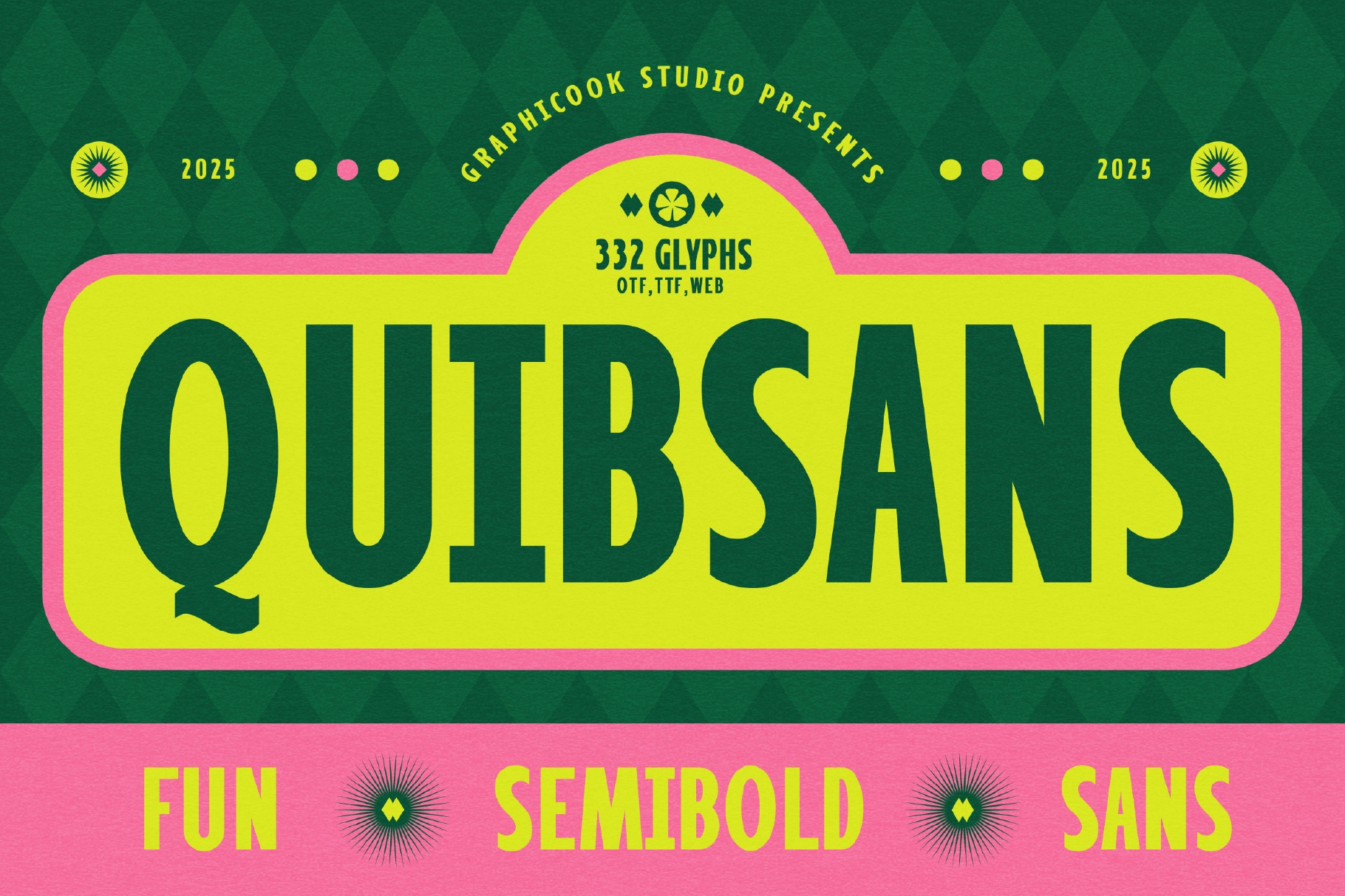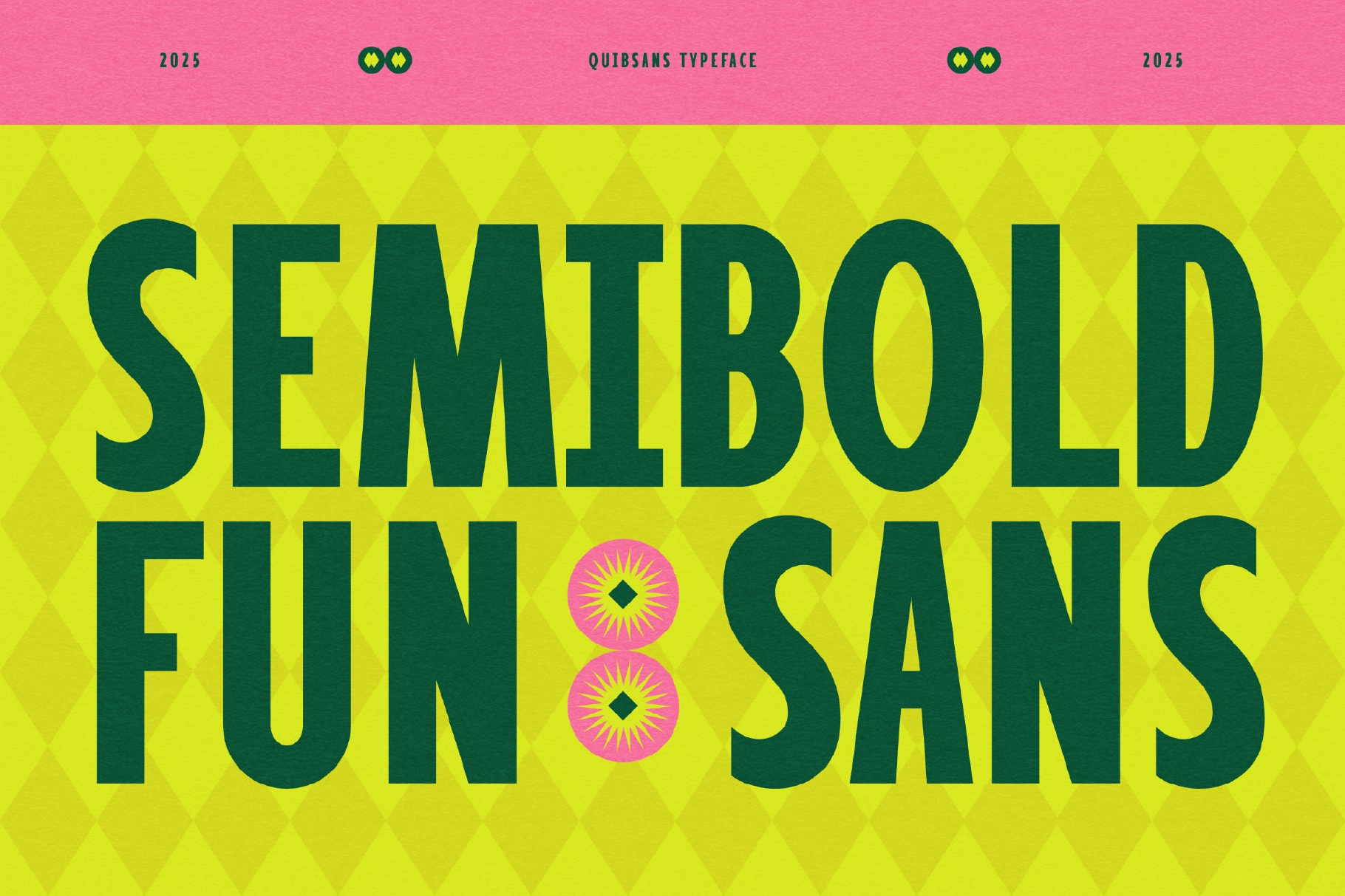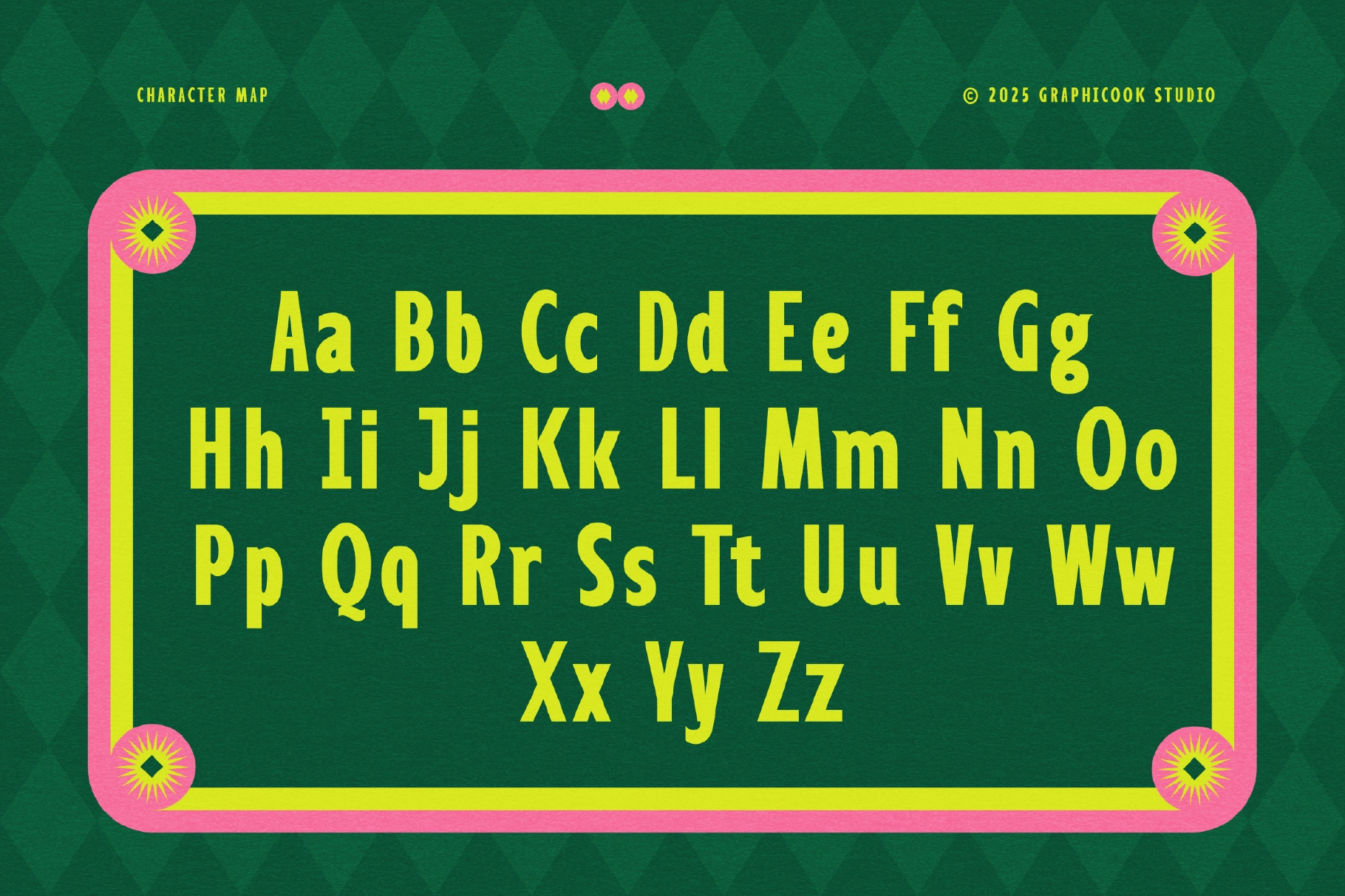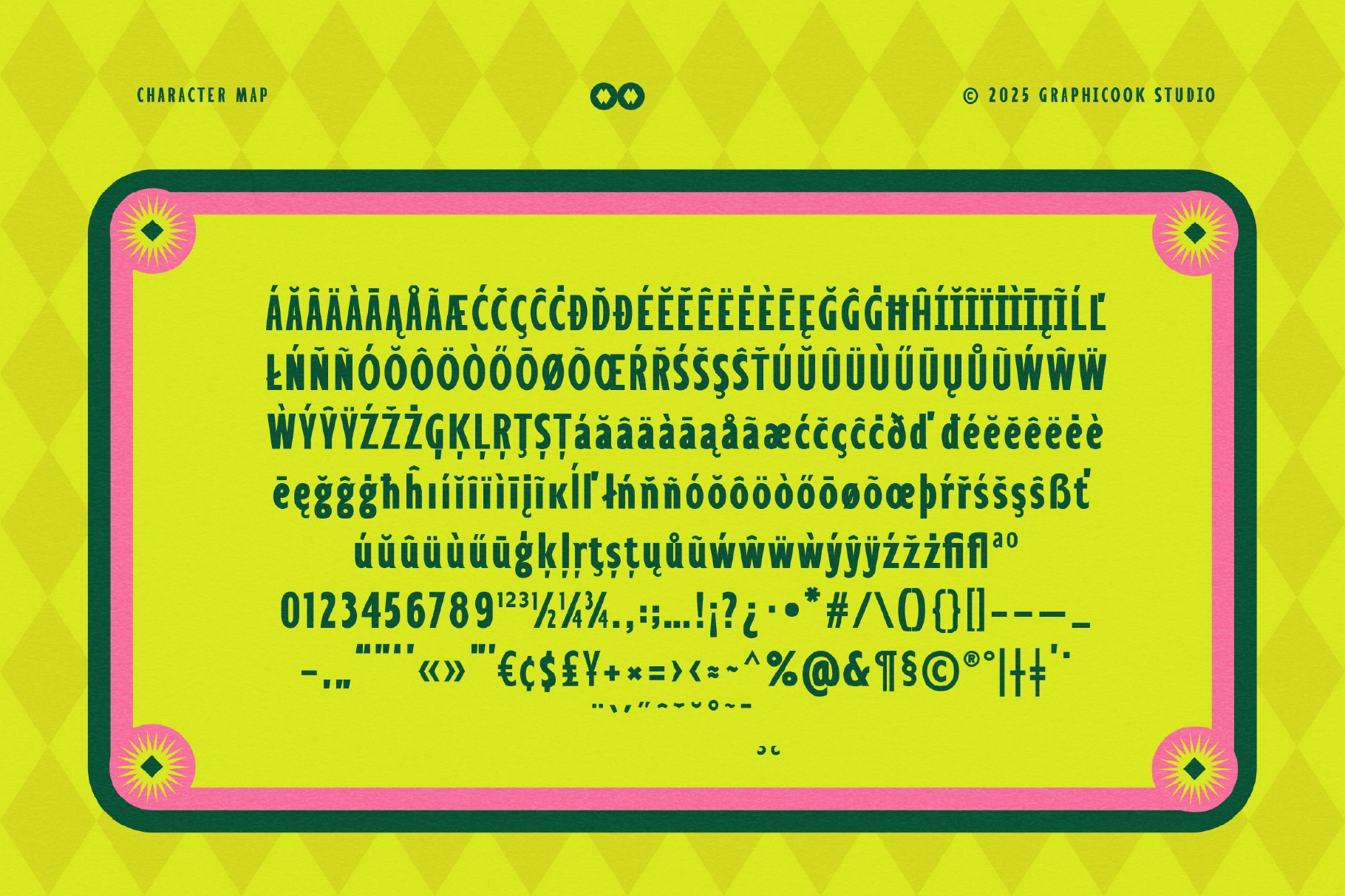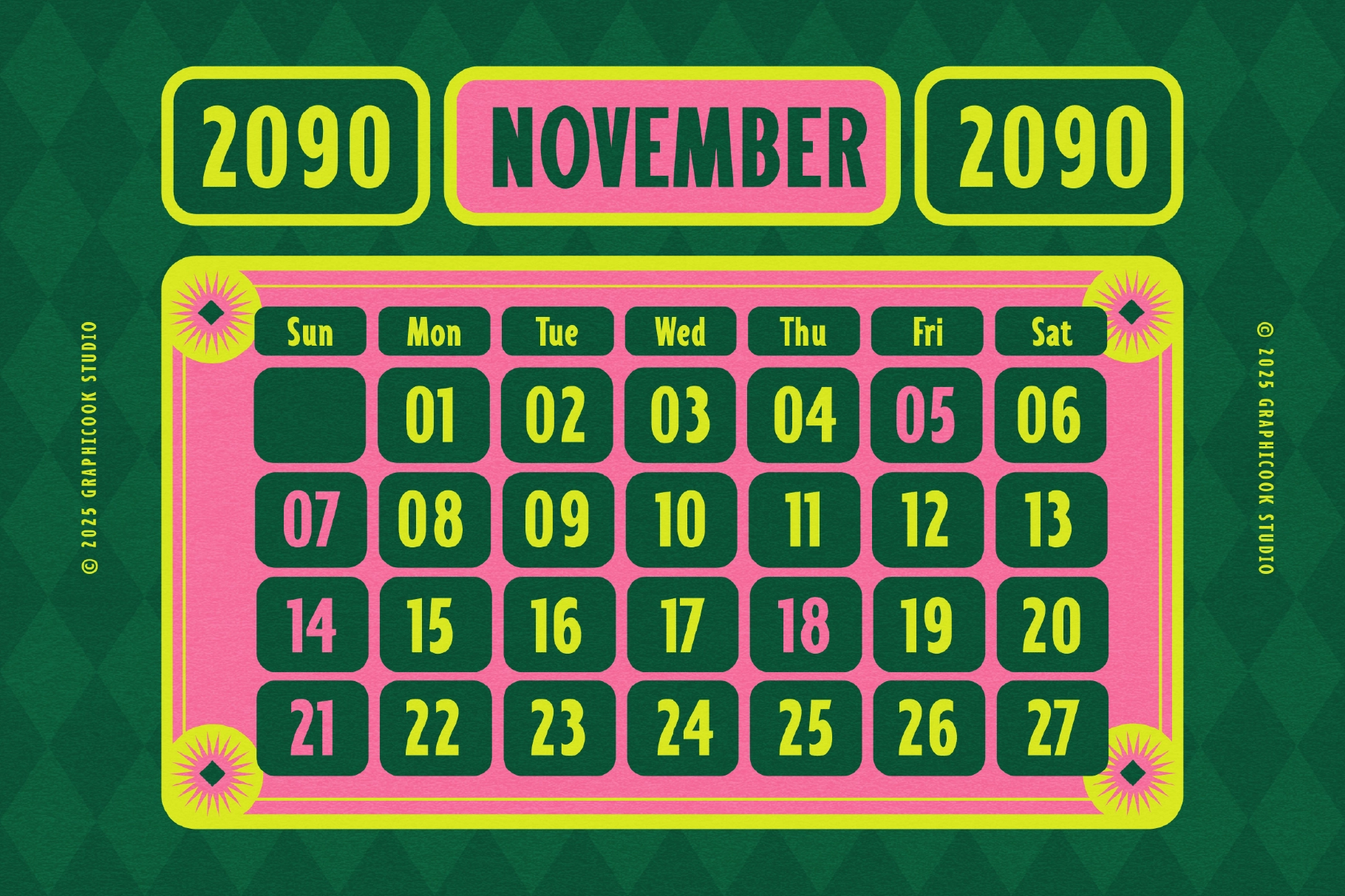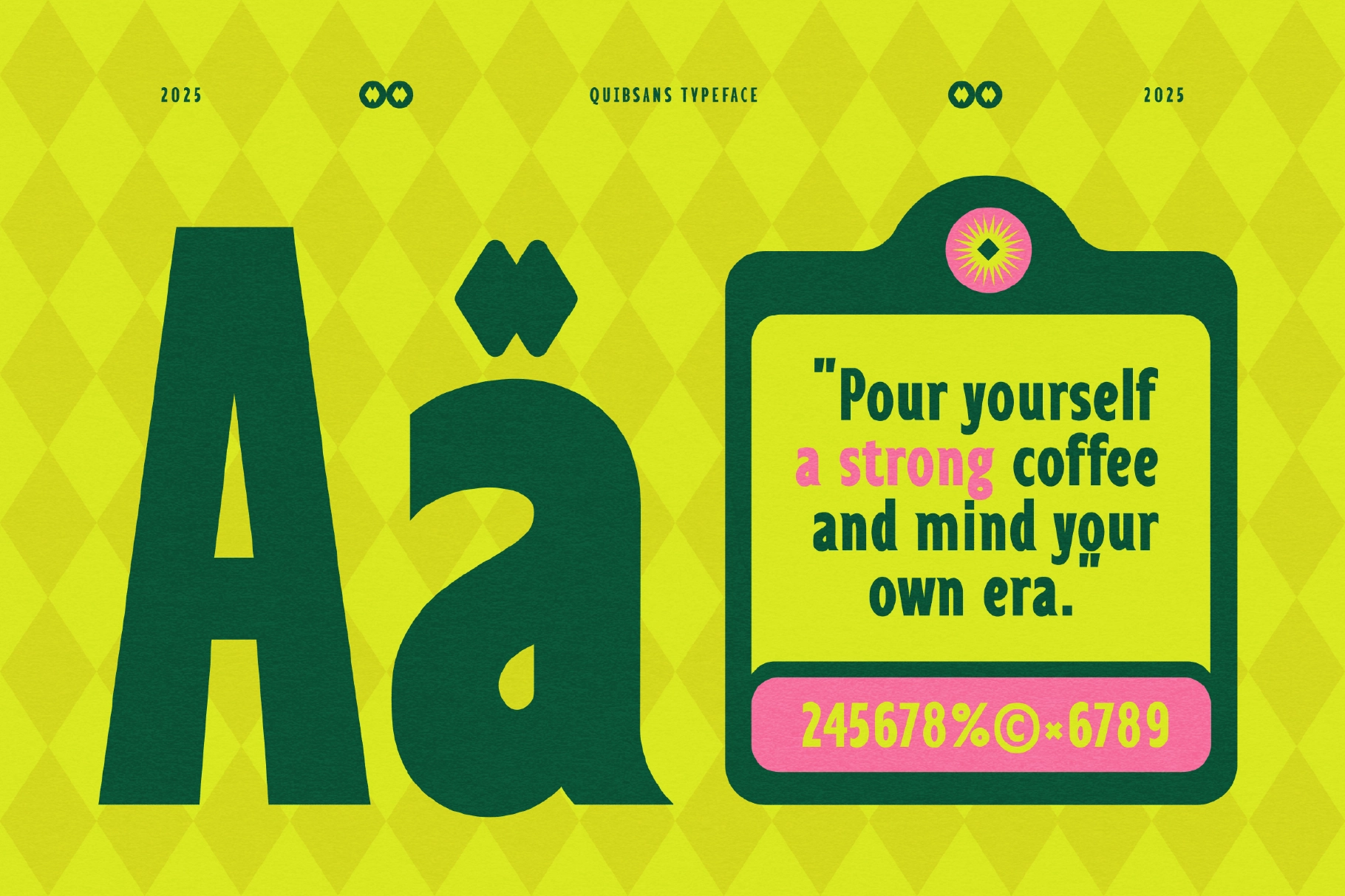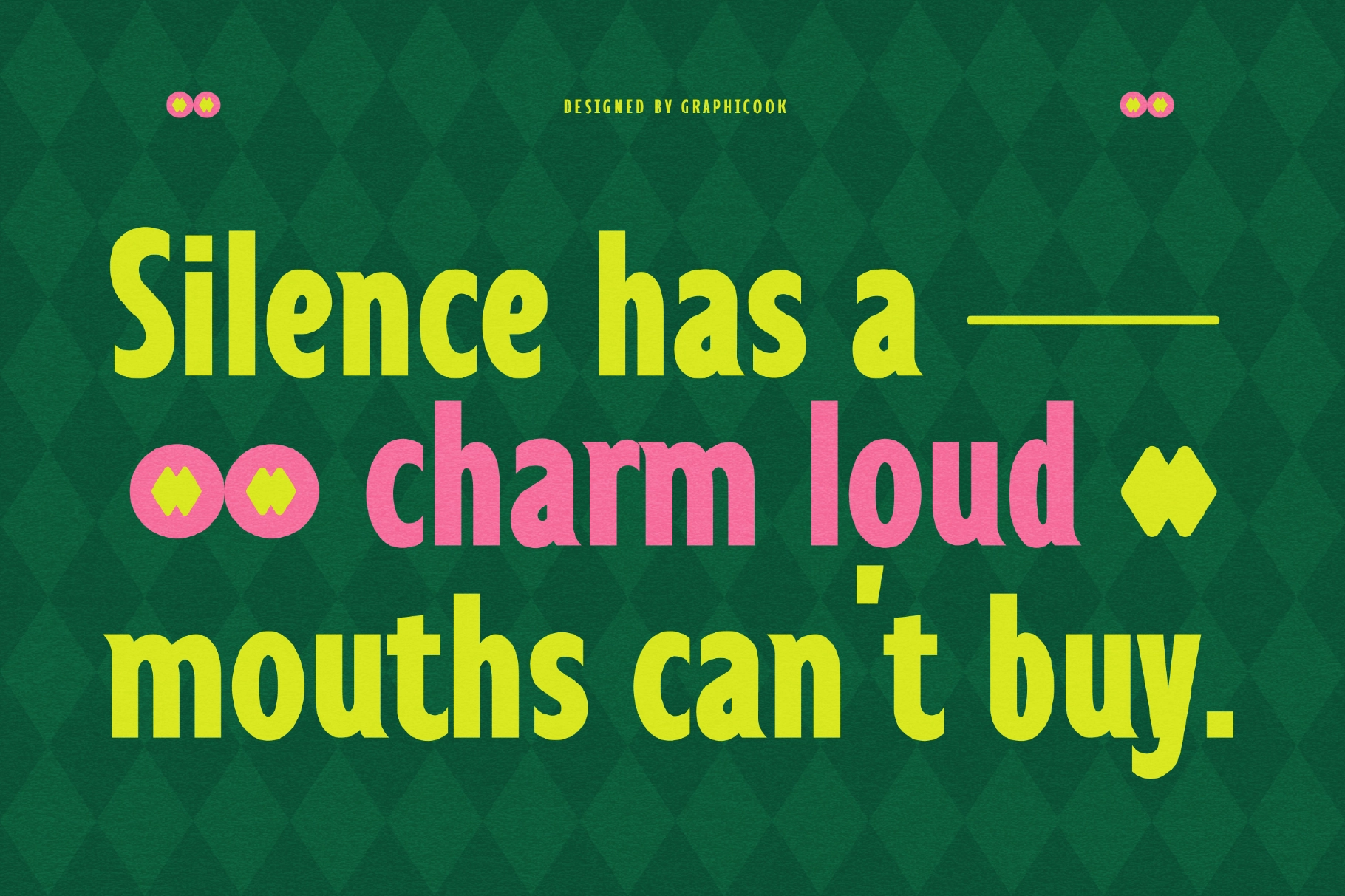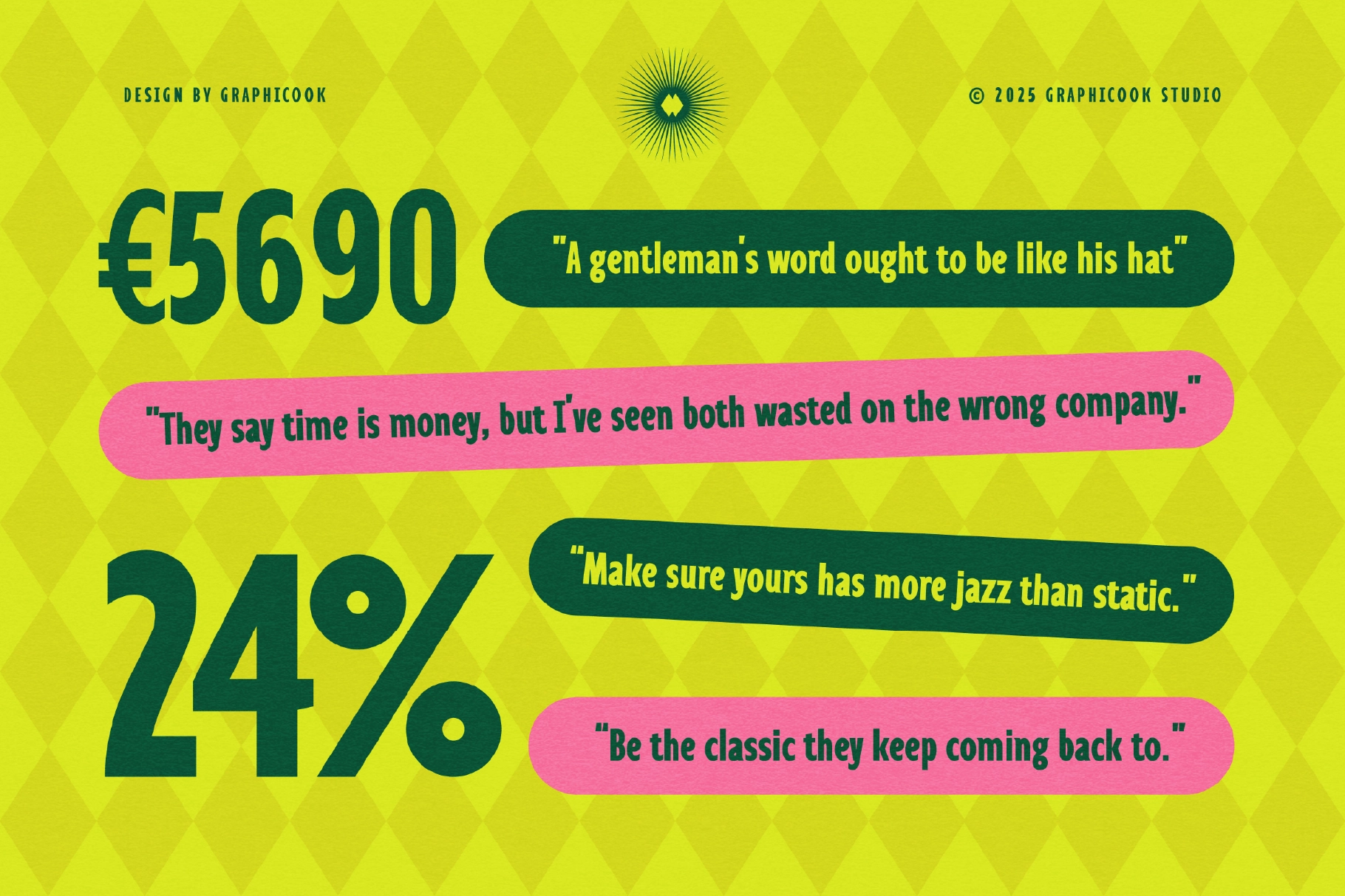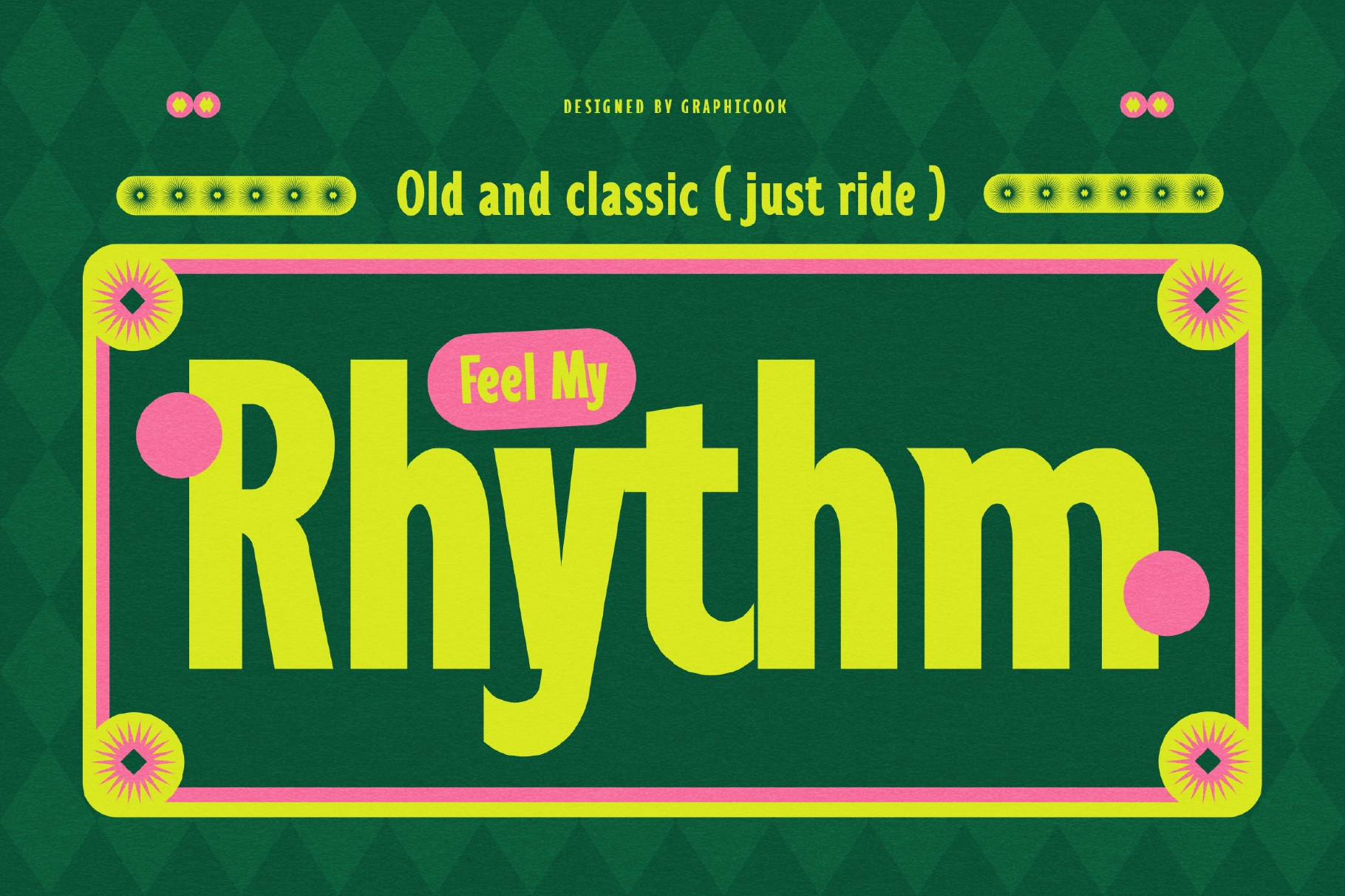
Quibsans Font
Quibsans is a bold sans-serif font with strong, confident shapes, presented in a retro-modern style. Great for posters, headlines, or any design that needs to stand out with personality.